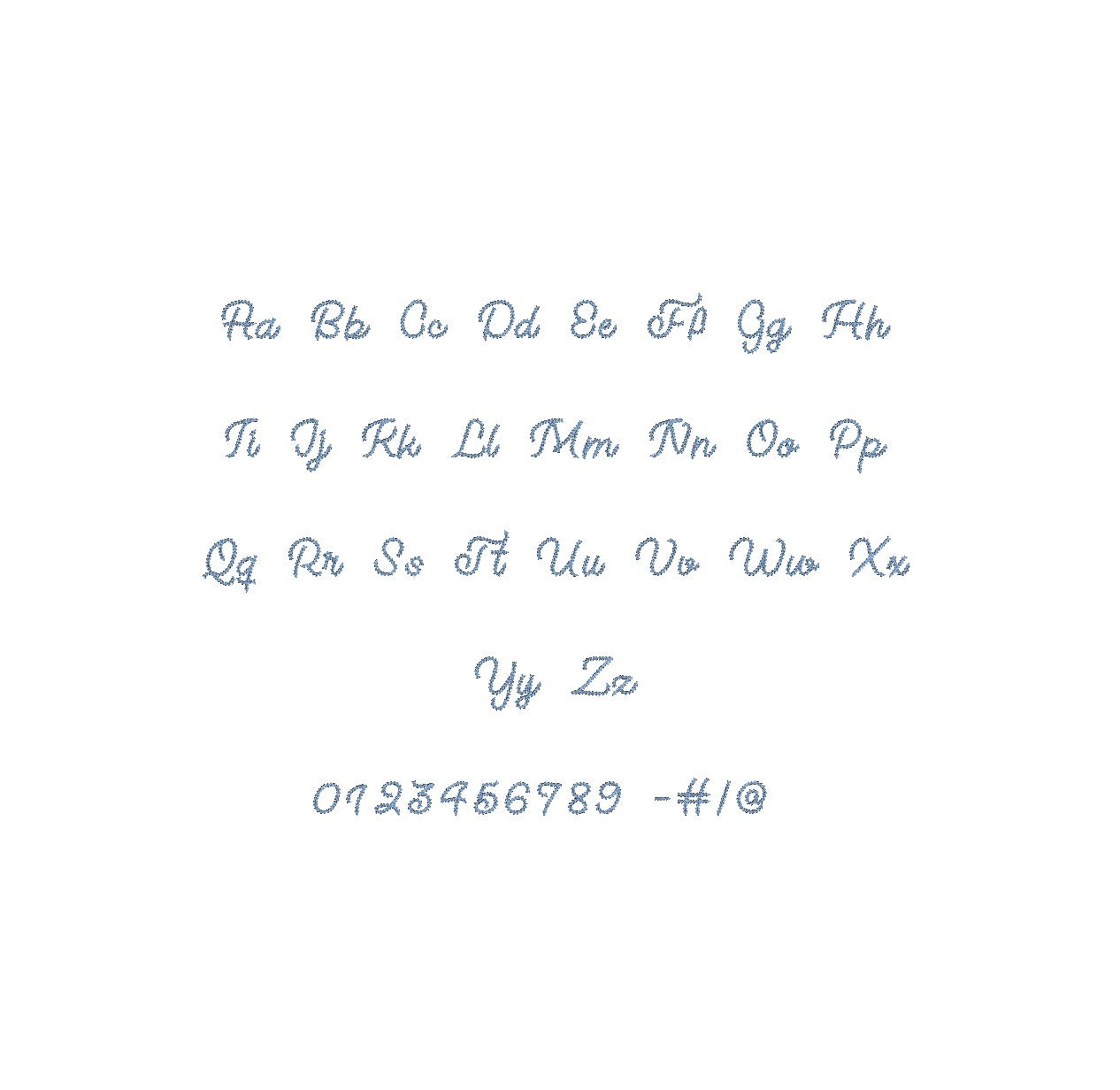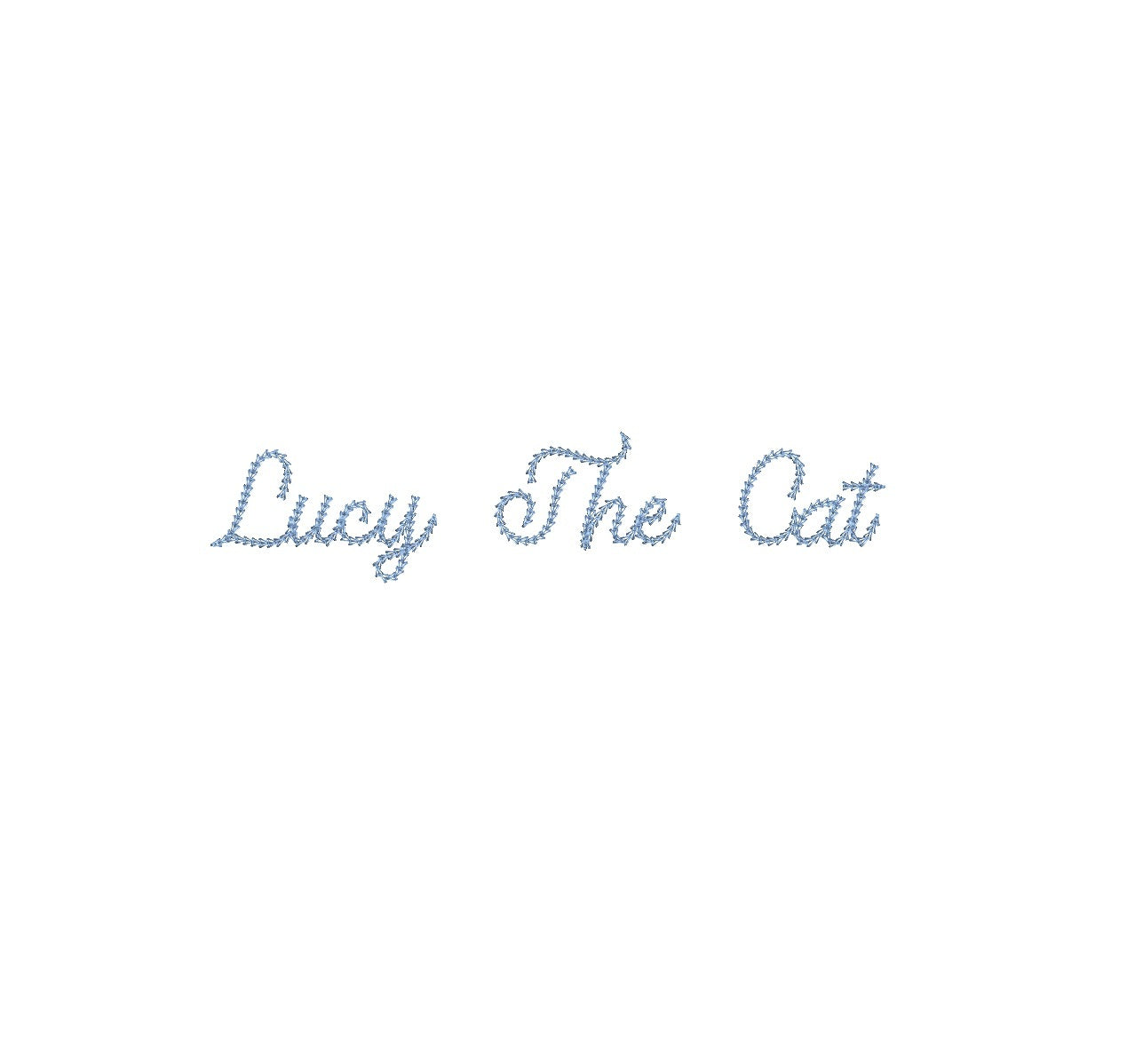
Elevate your embroidery with the charming Lucy the Cat Chain Stitch ESA font, perfect for Wilcom Studio e4.5.6 and Hatch 3 versions and up. This font adds playful whimsy to your designs, meticulously crafted with chain stitch artistry that brings depth and allure to every project. Seamlessly integrate for captivating results that stand out. Lucy the Cat transforms fabric into a canvas of creative delight, infusing your creations with feline charm. Elevate your embroidery with this seamless blend of technology and artistry. Experience the magic of Lucy the Cat Chain Stitch ESA font to redefine stitching excellence. Upgrade your designs today for enchanting impact.